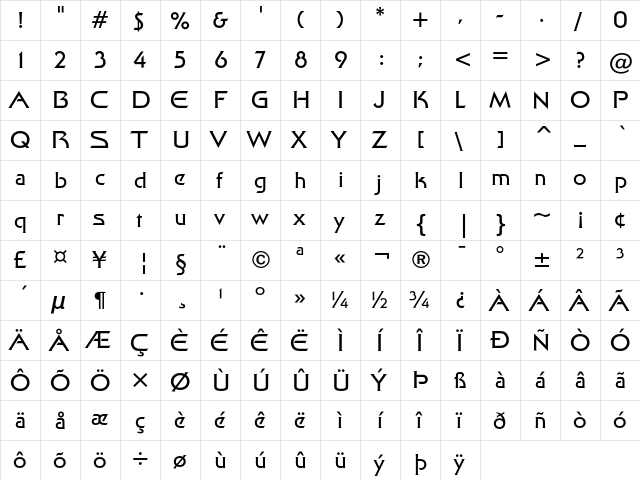
Galaxy Regular
Design Context for Galaxy Typeface
Galaxy offers clean, dependable letterforms without strong stylistic allegiance, making it a practical choice for designers who need flexibility.
Pro Tip: Use Galaxy in both headline and body roles to test its range before committing to a single application.